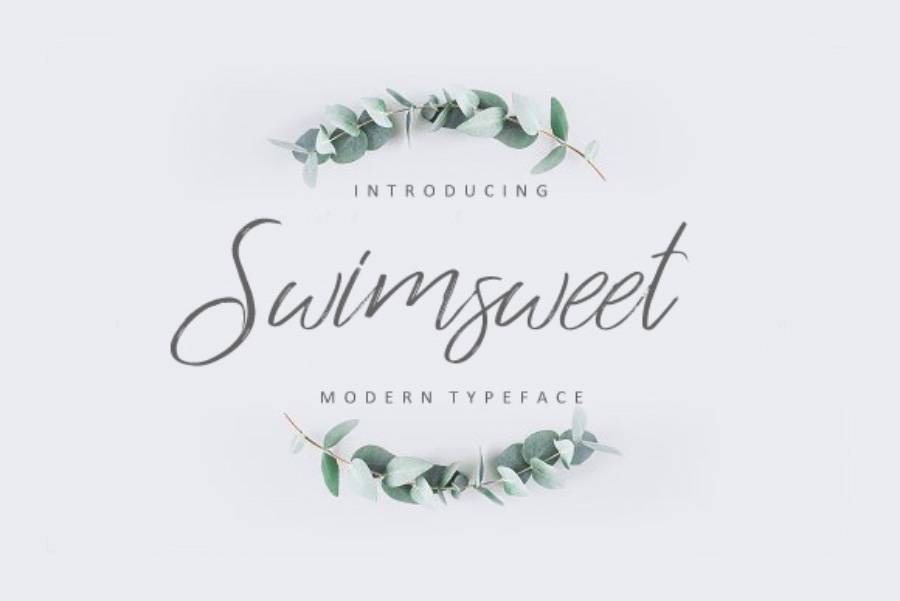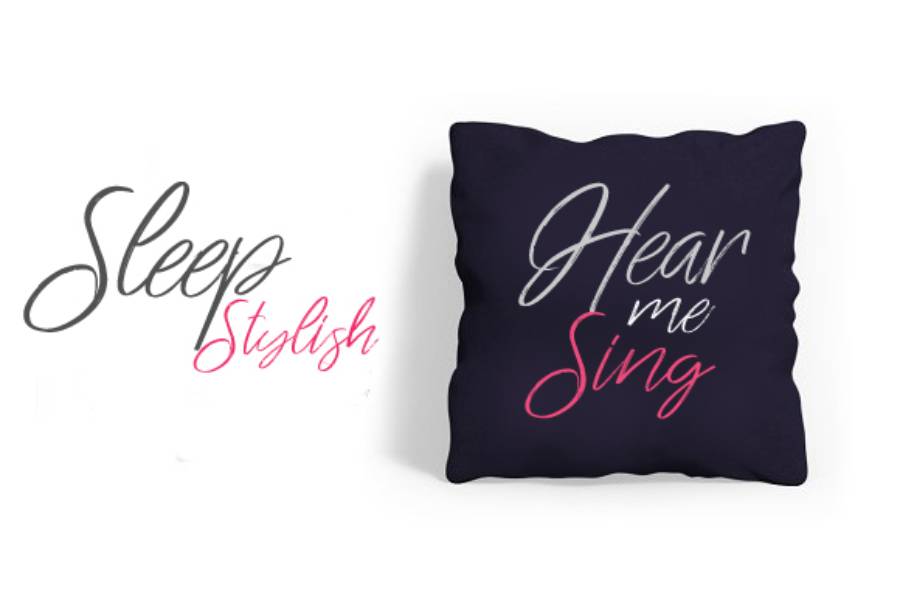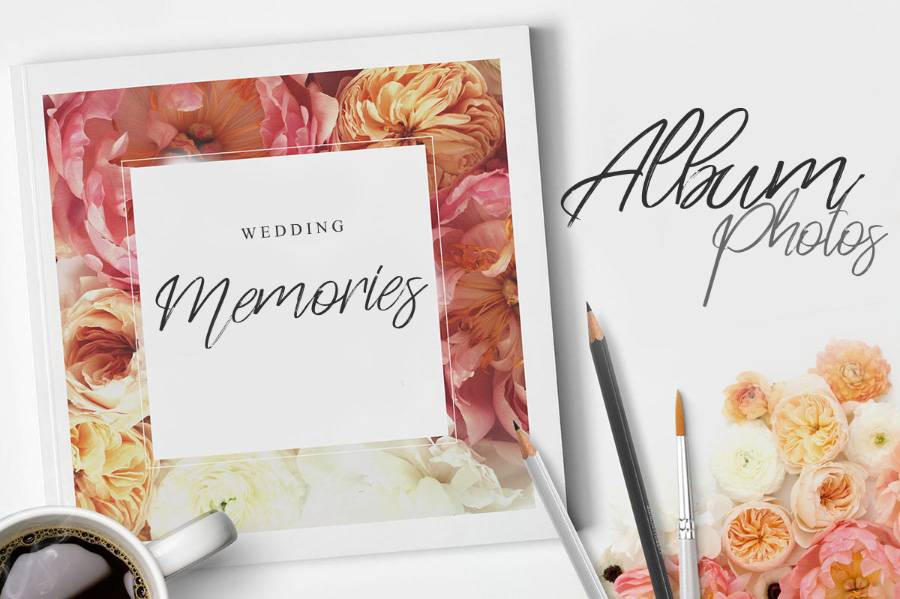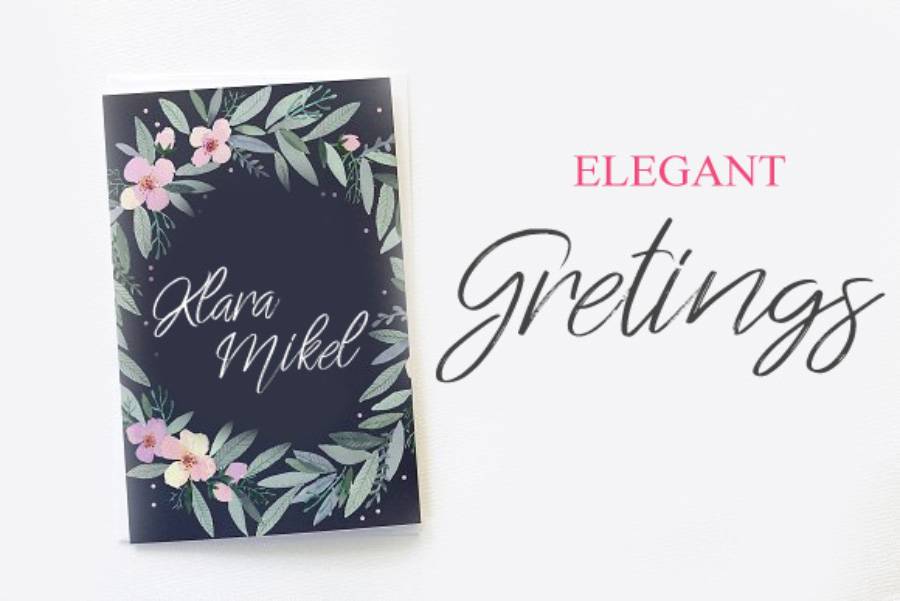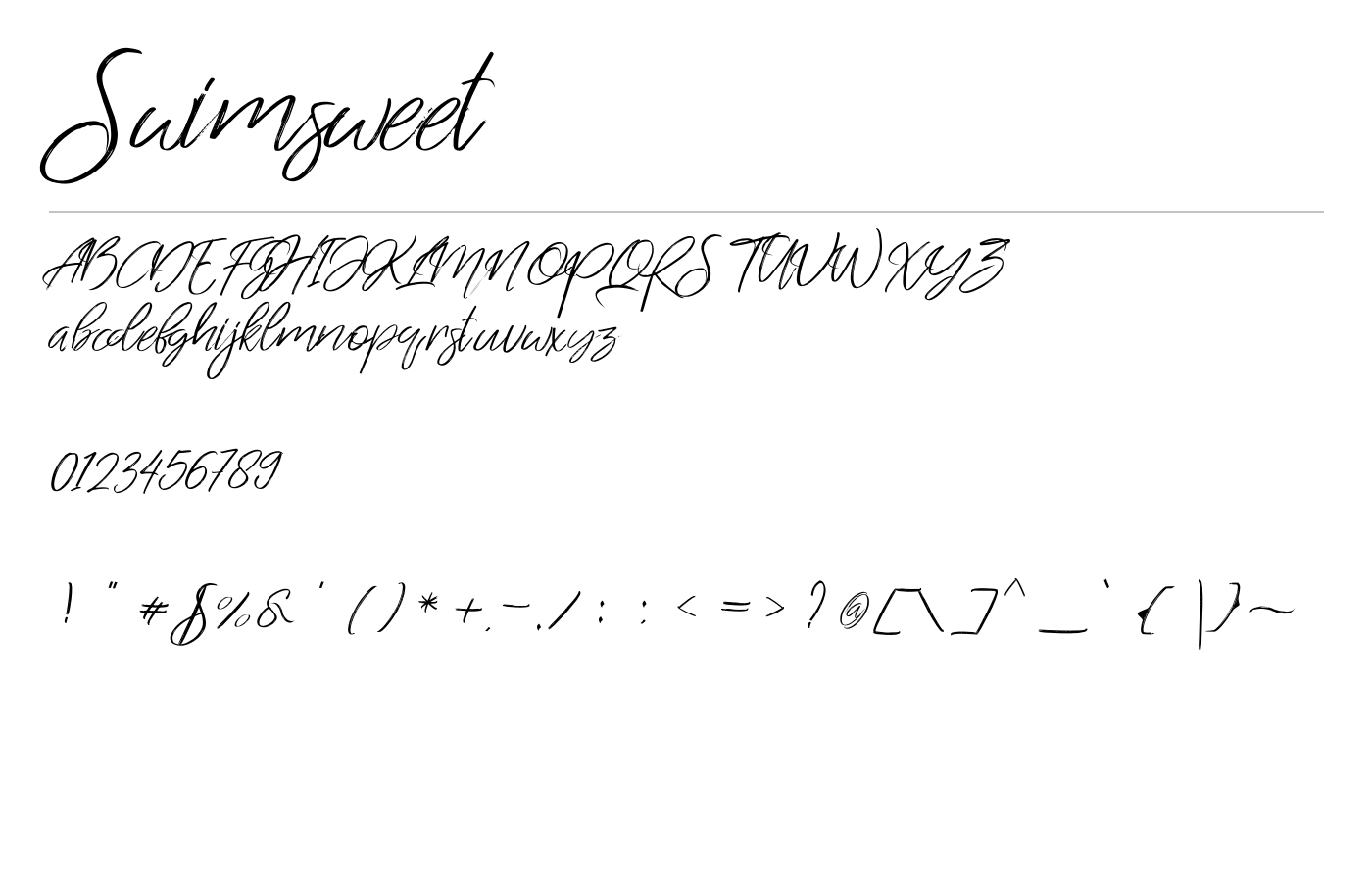
Swimsweet Script is a delicate and elegant handwritten font with a modern and casual flair. Its slender, flowing strokes and slight slant give it a refined yet approachable feel, making it ideal for personal branding, invitations, and creative projects that seek a stylish and intimate touch. This font works beautifully in contexts where a graceful and artistic look is desired, adding a sense of warmth and individuality.
Swimsweet Script Font Demo
About Swimsweet Script Font Demo